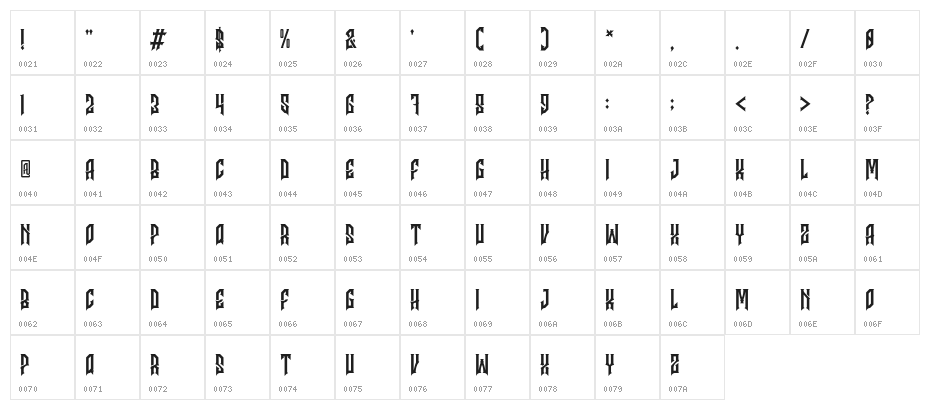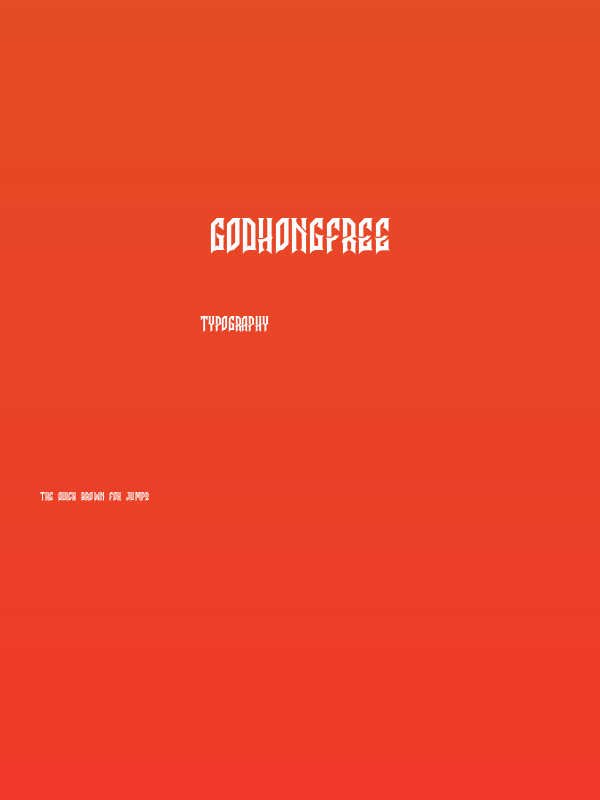
GodhongFree Font
GodhongFree Description
This font features a bold and striking design with sharp, angular edges and a gothic-inspired aesthetic. The uppercase and lowercase letters maintain a consistent height, creating a uniform appearance. The numerals and special characters are crafted with the same attention to detail, ensuring a cohesive look across all elements. The font's unique style is characterized by its decorative elements, which add a sense of drama and flair. The overall design is both modern and reminiscent of traditional blackletter styles, making it suitable for a variety of creative applications.
| Proposed Projects | Ideal for use in branding, posters, album covers, and any project requiring a dramatic and eye-catching typeface. |